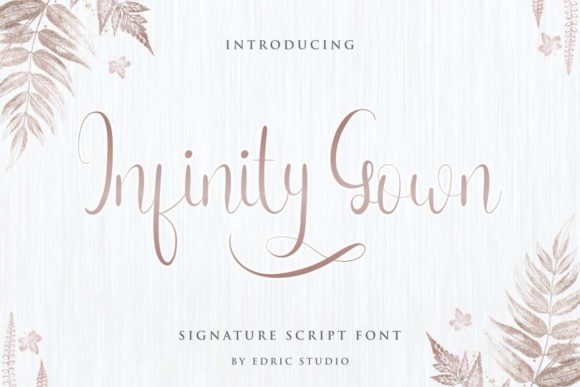
Infinity Gown Font for Elegant Handmade Products
As a small business owner and printable creator, finding the perfect typeface can make or break a product line, which is why Infinity Gown has become a staple in my design toolkit. This elegant and flowing handwritten font brings a sense of luxury and organic movement to physical goods that standard system fonts simply cannot replicate. When you are designing for tangible items like packaging, stationery, or apparel, the typography needs to convey quality at a glance. Infinity Gown offers that immediate visual hook, transforming simple text into a decorative element that feels bespoke and intentionally crafted rather than mass-produced.
Infinity Gown for Wedding Invitations and Elegant Branding
When designing premium stationery suites, Infinity Gown serves as an exceptional Script Handwritten choice that balances romance with modern readability. Wedding clients often seek typography that feels personal yet polished, and this font delivers through its smooth lines and gorgeous glides that mimic high-end calligraphy without looking messy. I frequently use this typeface for invitation headers, envelope addressing, and seating chart titles because the varying baseline adds a natural, human rhythm that rigid digital scripts lack. For branding projects, such as boutique logos or luxury candle labels, the font’s inherent elegance communicates a higher price point and attention to detail. The flowing nature of the glyphs ensures that even short brand names look established and thoughtful, helping handmade sellers compete with larger commercial brands in the wedding and lifestyle niches.
Accessing PUA Encoded Glyphs for Custom Flourishes
One of the most practical aspects for designers is that Infinity Gown is PUA encoded, which means you can access all of the glyphs and swashes with ease directly within your design software. For crafters using Cricut Design Space, Silhouette Studio, or Canva, this feature is non-negotiable because it eliminates the need for complex third-party character map tools. Being able to pull up alternate characters allows me to customize every instance of a letter so that no two product labels look identical, preserving the authentic handmade aesthetic. These extra swashes are particularly useful for extending underlines on welcome signs or adding decorative tails to monograms on personalized gifts. By utilizing these built-in alternates, Fonts like this one become versatile design systems rather than static letter sets, allowing for endless customization in client work and digital downloads.
Infinity Gown for Product Packaging and Retail Labels
Creating cohesive retail experiences requires versatile Fonts, and Infinity Gown excels when applied to product packaging, hang tags, and sticker designs. As a maker who sells physical goods, I know that the unboxing experience starts with the first piece of text the customer sees, whether that is a thank-you card or a jar label. The smooth lines of this script ensure that text remains legible even when scaled down for small cosmetic jars or jewelry tags, avoiding the cluttered look that some ornate scripts suffer from. Its varying baseline prevents the text from looking like a rubber stamp, giving printed materials a dynamic, hand-lettered appearance that boosts perceived value. Whether you are labeling artisanal soaps, boutique clothing, or specialty foods, this typeface provides the sophisticated backdrop necessary to justify premium pricing while maintaining clear communication of the product name.
Readability Tips for Cutting Machines and Small Prints
While Infinity Gown is undeniably beautiful, practical application for vinyl cutting and small-format printing requires specific adjustments to maintain integrity. Because it features a varying baseline and delicate connections, I always recommend testing cut settings on scrap material before committing to a full production run for decals or shirt transfers. For Cricut and Silhouette users, slightly increasing the letter spacing or using the "weld" function can prevent fragile loops from tearing during the weeding process. When designing for small stickers or return address labels, avoid using the most elaborate swash alternates, as fine details may fill in with ink or fail to cut cleanly. Instead, reserve the gorgeous glides and extended flourishes for larger display applications like wall art, mirror decals, or acrylic signage where the intricate details can be fully appreciated without compromising structural stability.
Pairing Infinity Gown with Clean Sans Serif Fonts
To maximize the commercial utility of Infinity Gown, it is essential to pair this expressive Script Handwritten typeface with a stable, neutral supporting font. In my own template designs and product mockups, I consistently combine this flowing script with a clean sans serif or a simple geometric typeface to create hierarchy and balance. The contrast between the organic, emotional curves of Infinity Gown and the structured reliability of a sans serif ensures that critical information like dates, prices, or ingredients remains instantly readable. This pairing strategy is vital for creating sellable templates on Etsy or Creative Market, as buyers need designs that are both aesthetically pleasing and functionally clear. Avoid pairing this font with other highly decorative scripts, as they will compete for attention; instead, let Infinity Gown be the star display element while a minimalist font handles the body copy and logistical details.
Infinity Gown for Seasonal Crafts and Wall Art
The versatility of Infinity Gown extends beautifully into seasonal crafting and home decor markets, where emotional connection drives sales. I have found this font particularly effective for holiday card designs, festive banner SVGs, and inspirational wall art prints because its smooth lines evoke warmth and nostalgia. Unlike trendy novelty fonts that feel dated after a single season, the classic elegance of this script allows it to transition seamlessly from Valentine’s Day wedding stationery to Christmas gift tags and autumn harvest signs. For printable wall art creators, the varying baseline adds visual interest to quotes and affirmations, making them feel like original hand-lettered pieces rather than typed text. This adaptability makes Infinity Gown a high-return investment for shops that rotate inventory seasonally, as the same typeface can anchor diverse product collections throughout the year while maintaining a consistent brand identity.